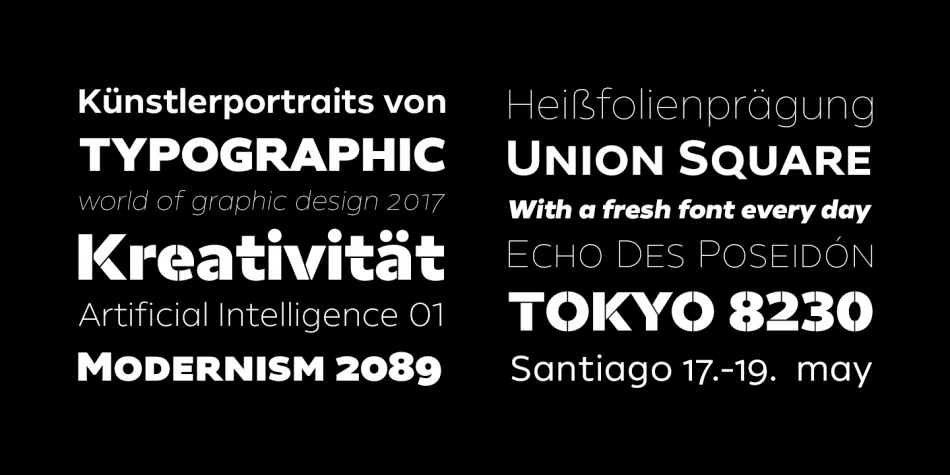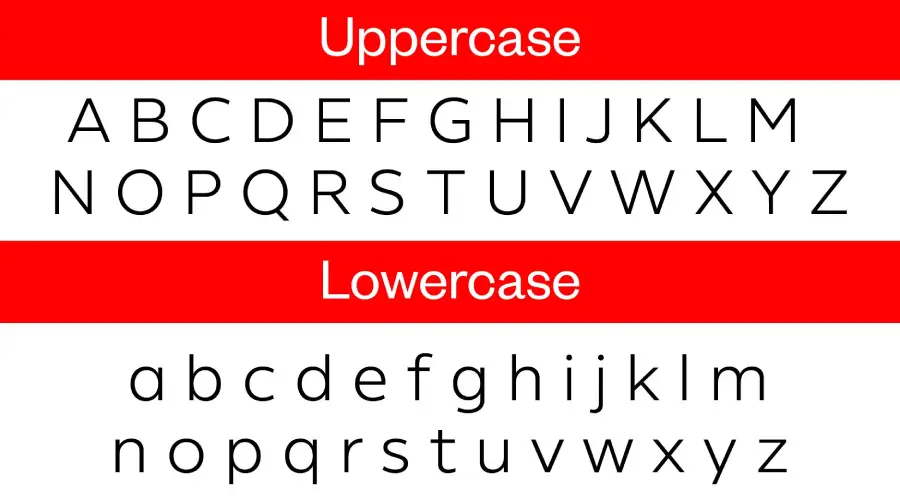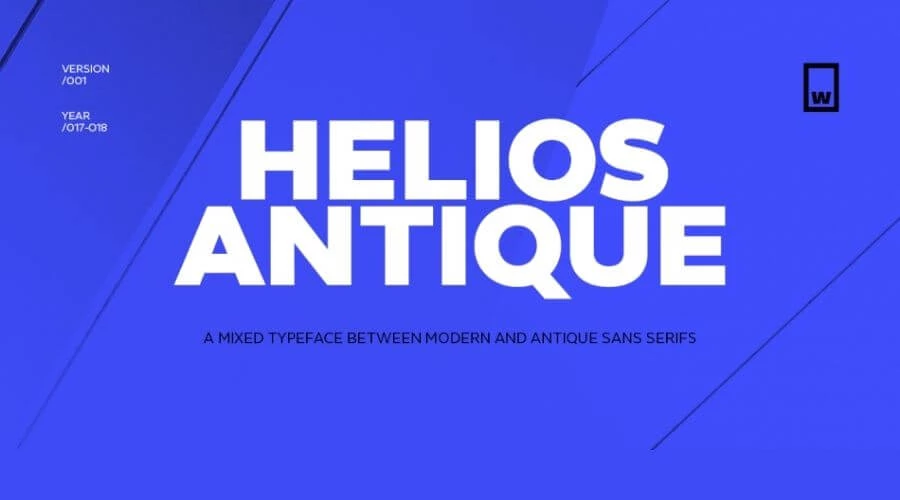
Helios Antique Font family is the result of a mix between the early sans serif style and the contemporary styles of our time. The rational design is bigger than the initial sans, creating more impact when it comes to its usage. The typeface terminals are more open to make it easier to contrast the blacks and whites in Helios and in the places where the strokes intersect the font has a greater contrast which makes it more legible to the user.
Additionally, in certain letters, you can notice some distinct elements, like”the leg” of “R” as well as the tail “Q” These are specific gestures that define the Helios family of letters. Helios Antique is composed of 37 styles with 782 glyphs as well as small caps. Additionally, it includes strong OpenType features for every style, such as alternate characters such as ligatures, fractions, special numbering, arrows extended language support, and others. Free Download is available for this amazing sans-serif font. Download Helios Antique font now.
If you are reading this, you are probably staring at a computer screen. Chances are, fonts of sans serif typeface are all you’ll find on the screen. This is because of their legibility for online reading, which is drastically different from that of serif typefaces. Sans serif fonts have simple lines and letterforms that make them perfect for on-screen reading but cause less eye fatigue than their counterparts. But, Helios Antique is much more versatile than that. Its more human-like appearance makes it suitable for application in fashion, culture and entertainment exhibitions, sports, and leisure. It’s a great choice for applications for finding your way as well as packaging, apps, as well as all types of non-fiction books.